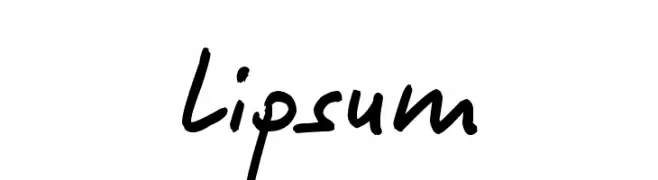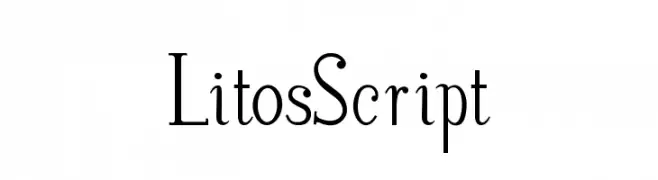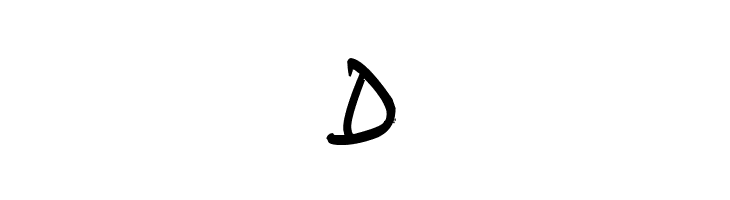
A bold, rounded font perfect for impactful headlines and titles.
A bold, high-contrast serif font with dynamic and elegant styling.
A bold, geometric font with Art Deco influences and modern appeal.
A bold, jagged font with sharp edges and a fierce style.
An elegant serif font with an italic slant and moderate stroke contrast.
A classic serif font with elegant and refined letterforms.
A modern gothic font with sharp, angular lines and geometric shapes.
A lively, handwritten font with fluid and dynamic strokes.
A playful, whimsical handwritten font with flowing cursive letters.